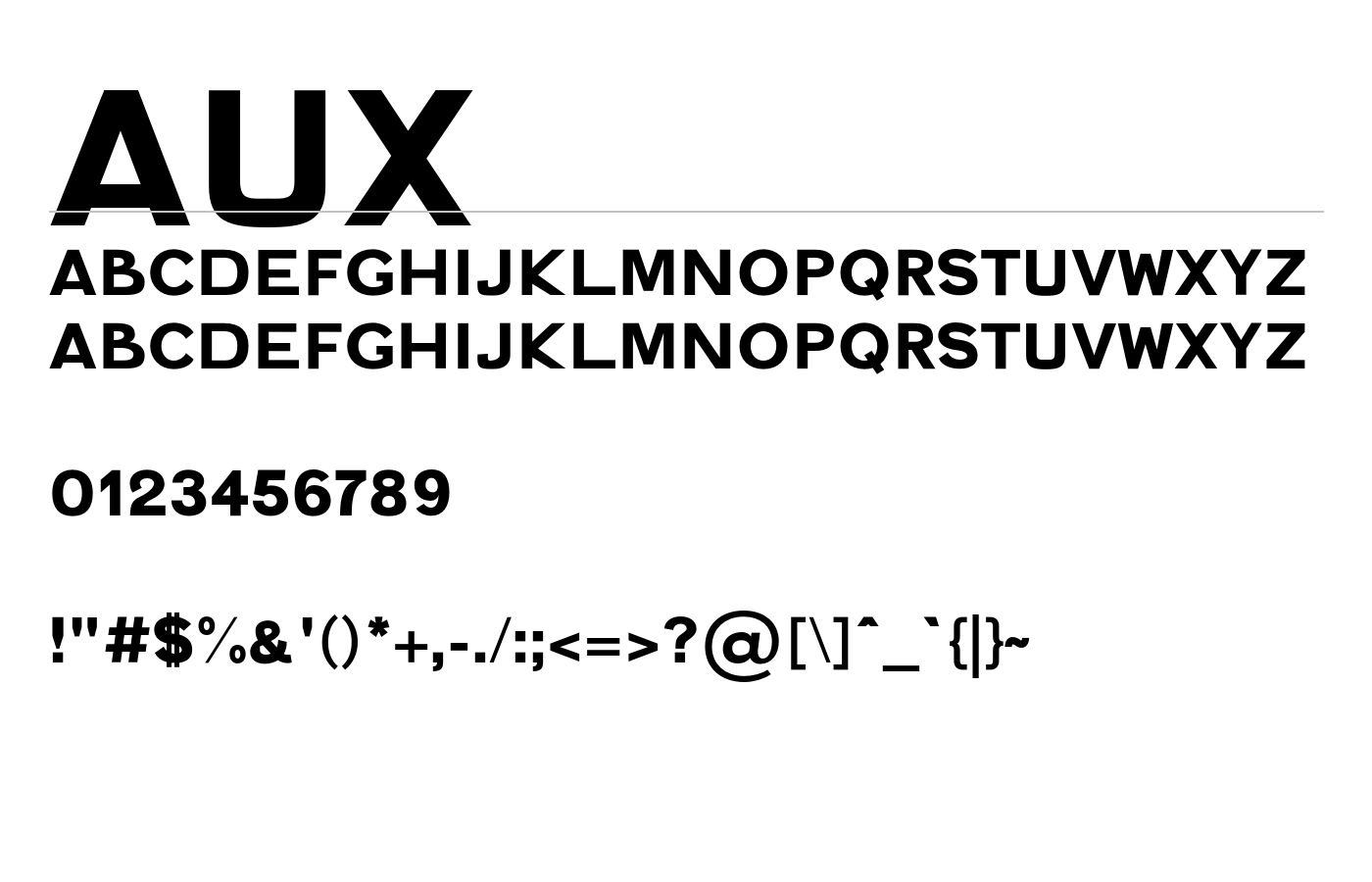
Aux Font is a bold, geometric sans serif typeface with clean, sturdy lines and uniform stroke weight, creating a modern and strong presence. Its wide proportions and high x-height make it highly legible and impactful, perfect for branding, headlines, and editorial designs that demand clarity and confidence. This font’s straightforward yet powerful style suits contemporary projects needing a bold, no-nonsense look.
Aux Font
About Aux Font